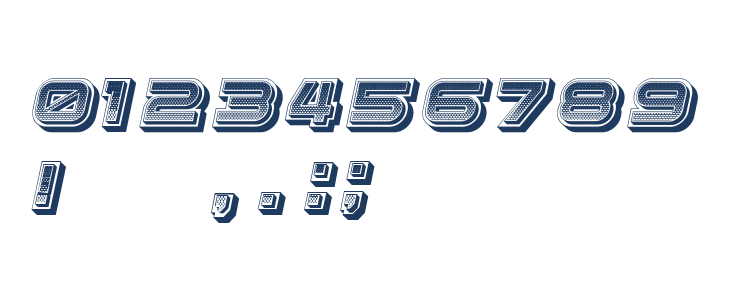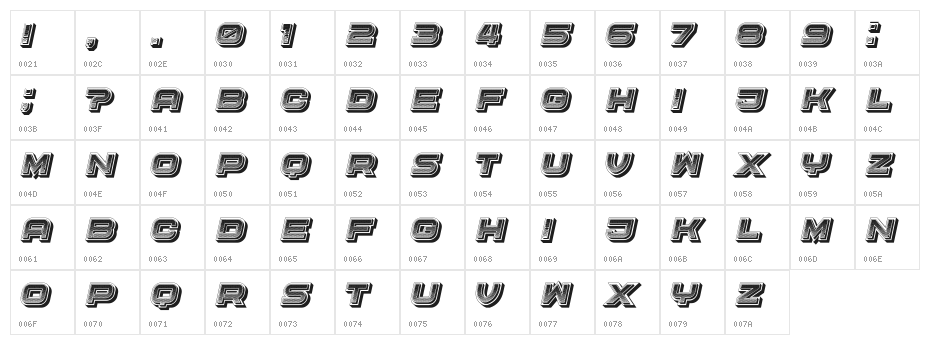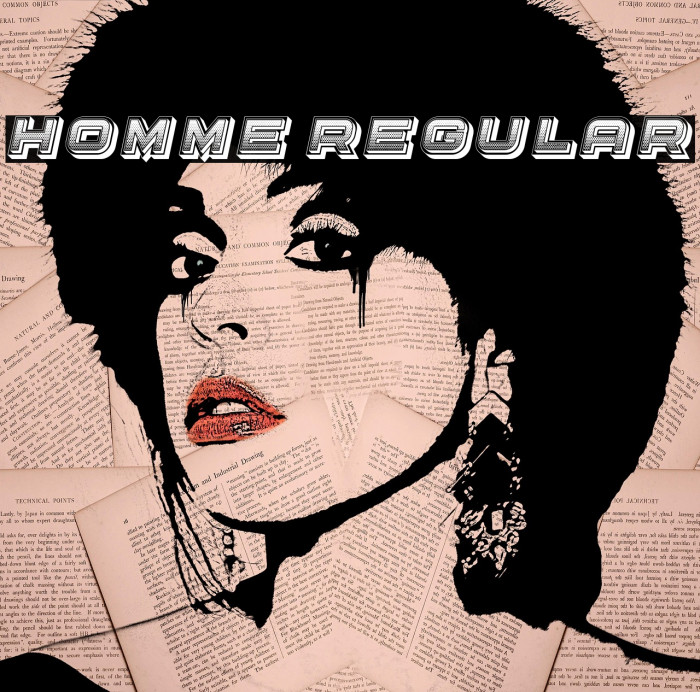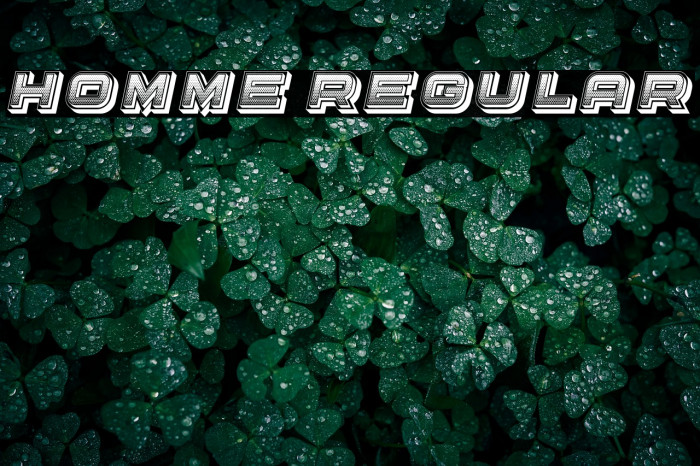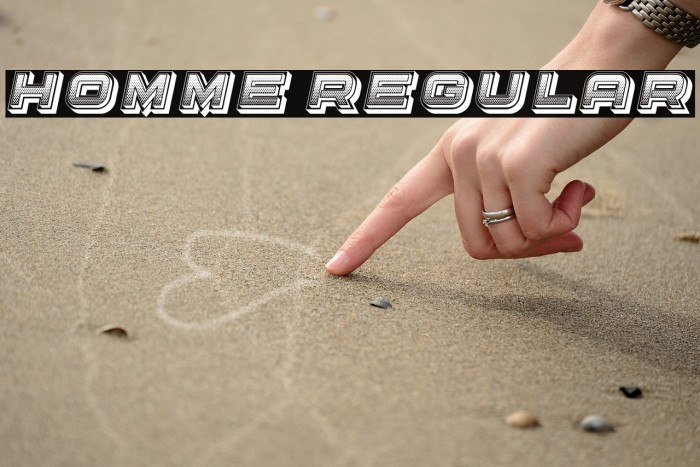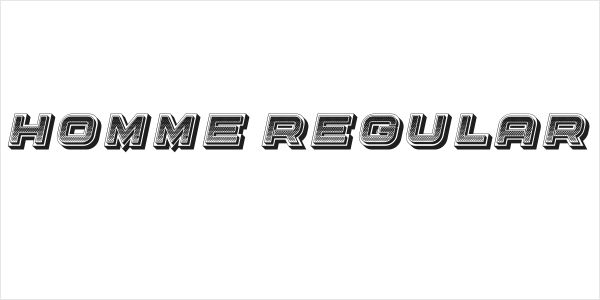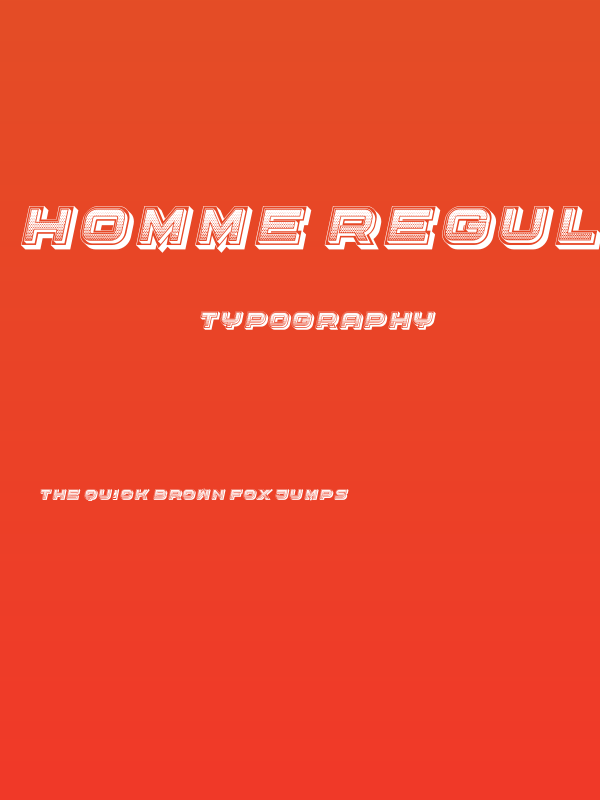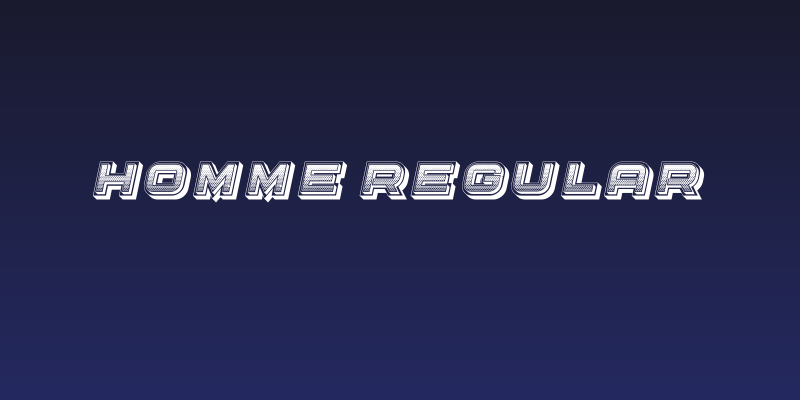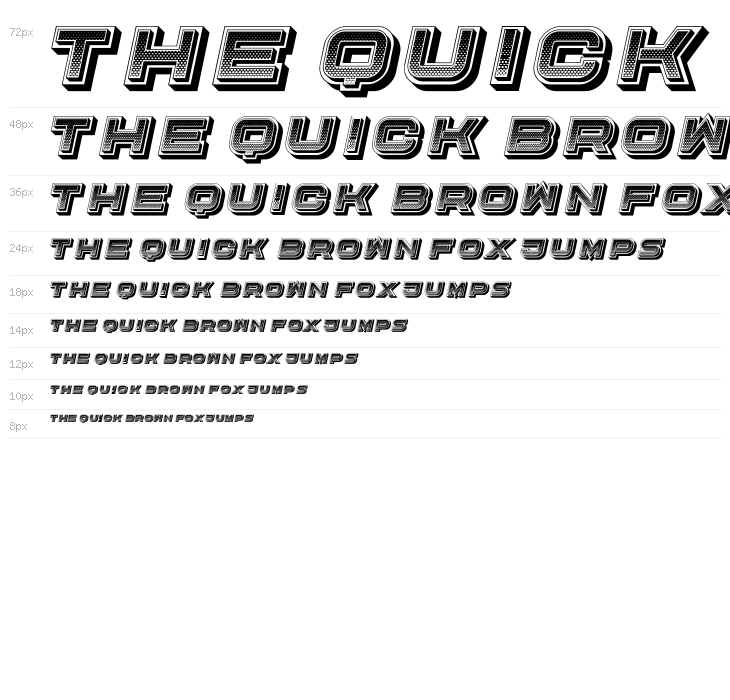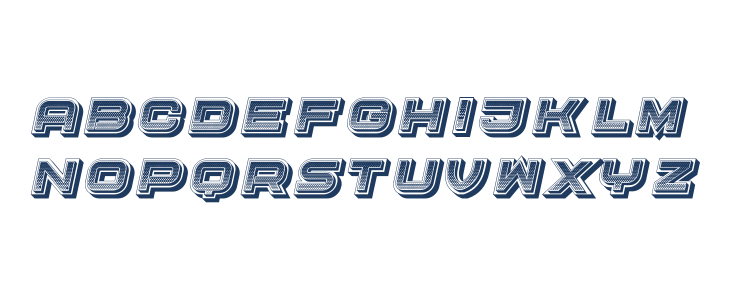
Homme Regular Font
Homme Regular Description
This font features a bold, three-dimensional design with a distinct shadow effect that gives it a striking, layered appearance. Each character is outlined with a thick border, enhancing its visibility and impact. The interior of the letters is filled with a pattern of diagonal lines, adding texture and depth. The overall style is modern and dynamic, making it suitable for attention-grabbing designs. The uppercase letters are uniform in height, and the numbers share the same bold characteristics. The special characters maintain the same stylistic elements, ensuring consistency across all glyphs.
| Proposed Projects | Ideal for posters, headlines, branding, and any project requiring a bold, impactful typeface. |